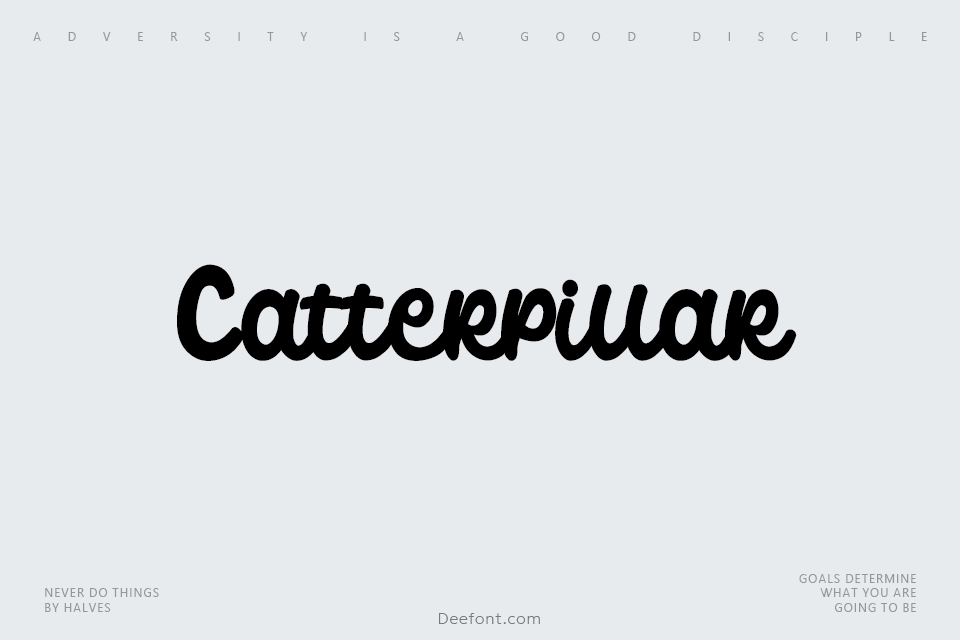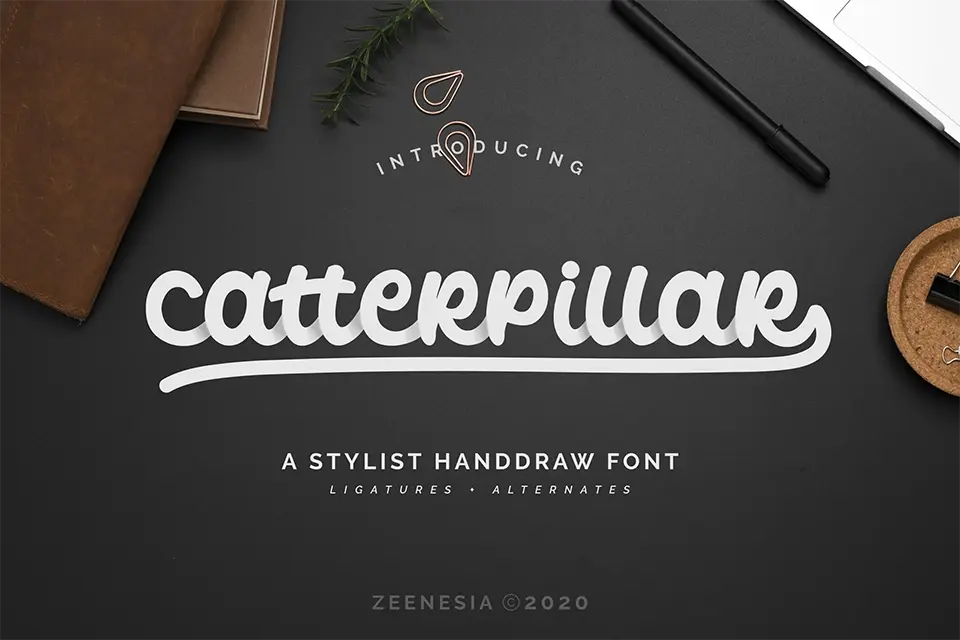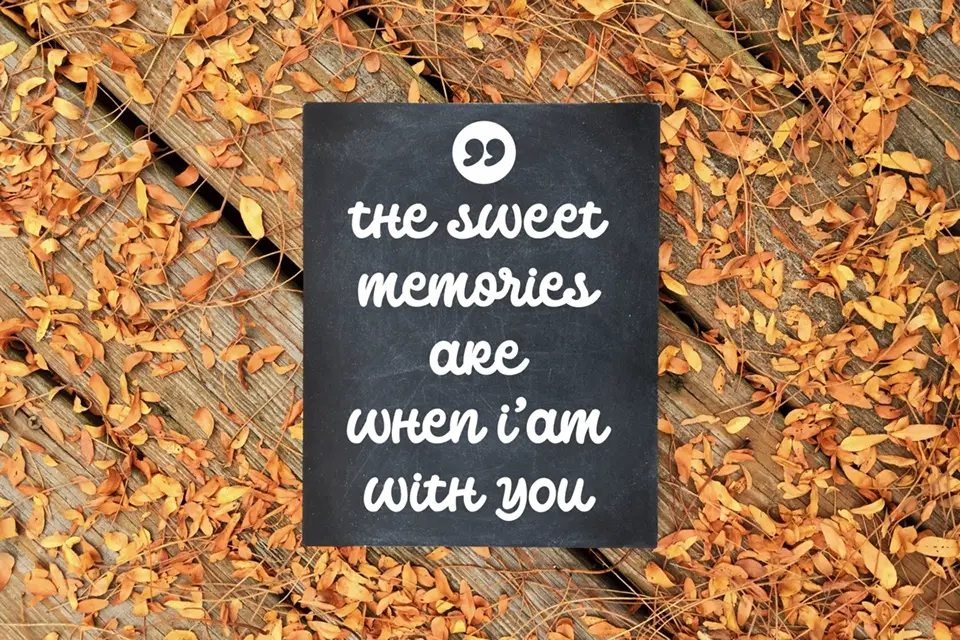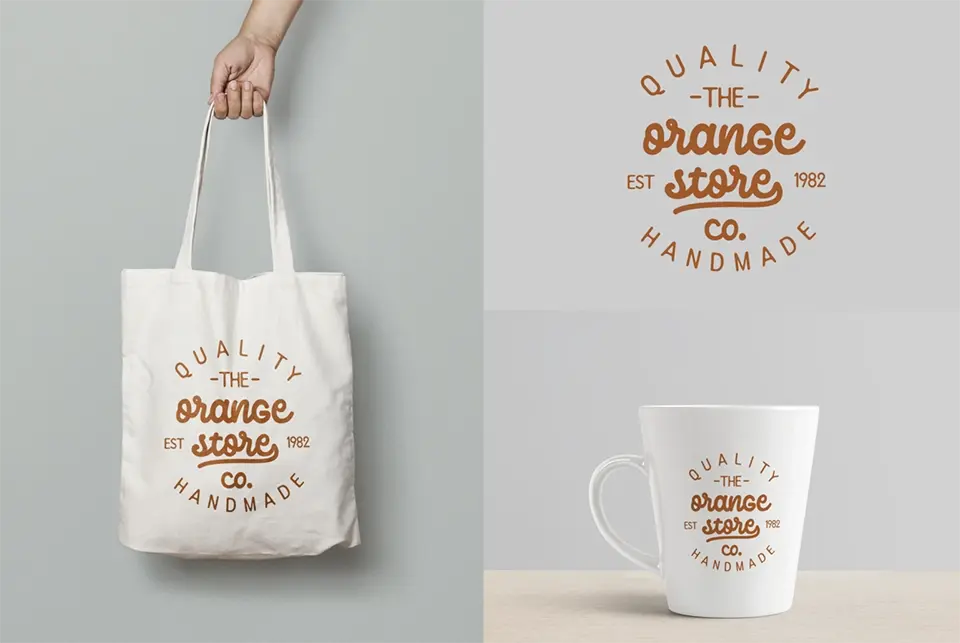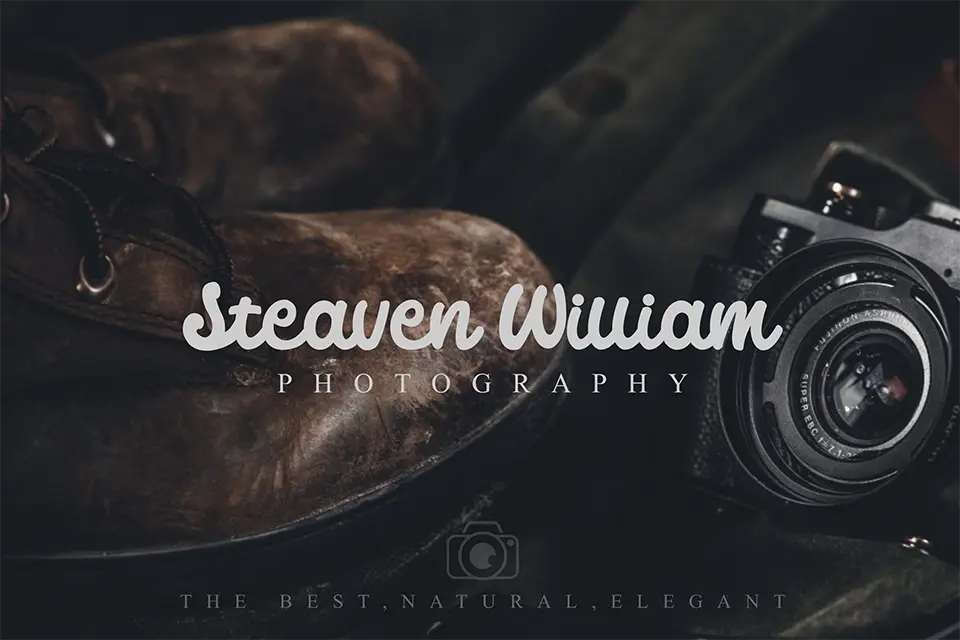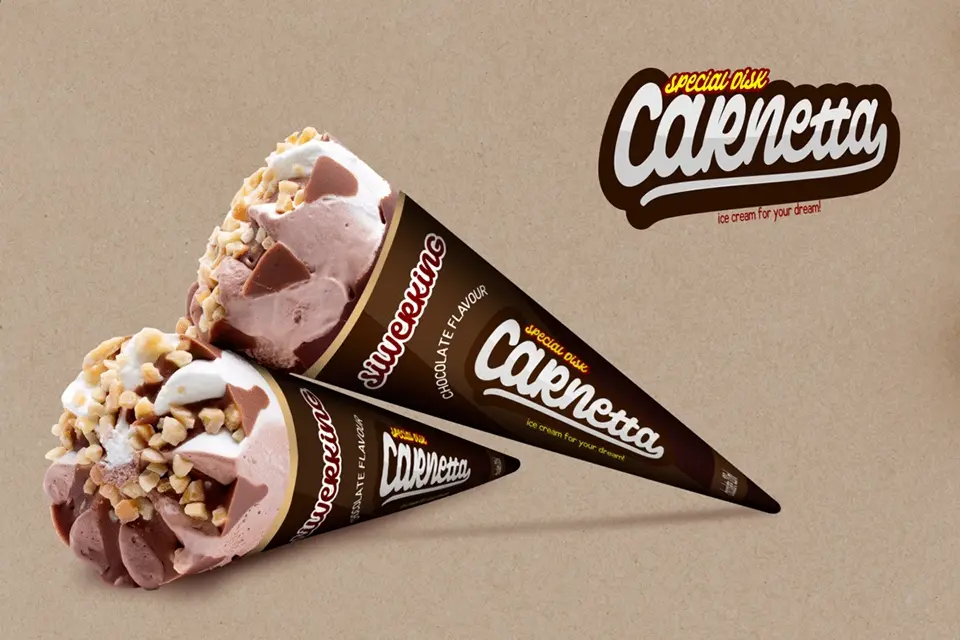
Catterpillar Font
Catterpillar is a playful and decorative script font designed by Zeenesia Studio, featuring whimsical handdrawn letterforms with organic embellishments. This versatile display typeface showcases 215 glyphs with rich OpenType features including stylistic alternates and standard ligatures, offering multilingual support. Perfect for creative projects including invitations, branding, product packaging, logos, posters, and artistic designs, Catterpillar brings an elegant yet fantastical touch to typography. With its smooth, flowing strokes and artistic character, this font elevates any design that requires a unique, eye-catching aesthetic while maintaining legibility and charm.